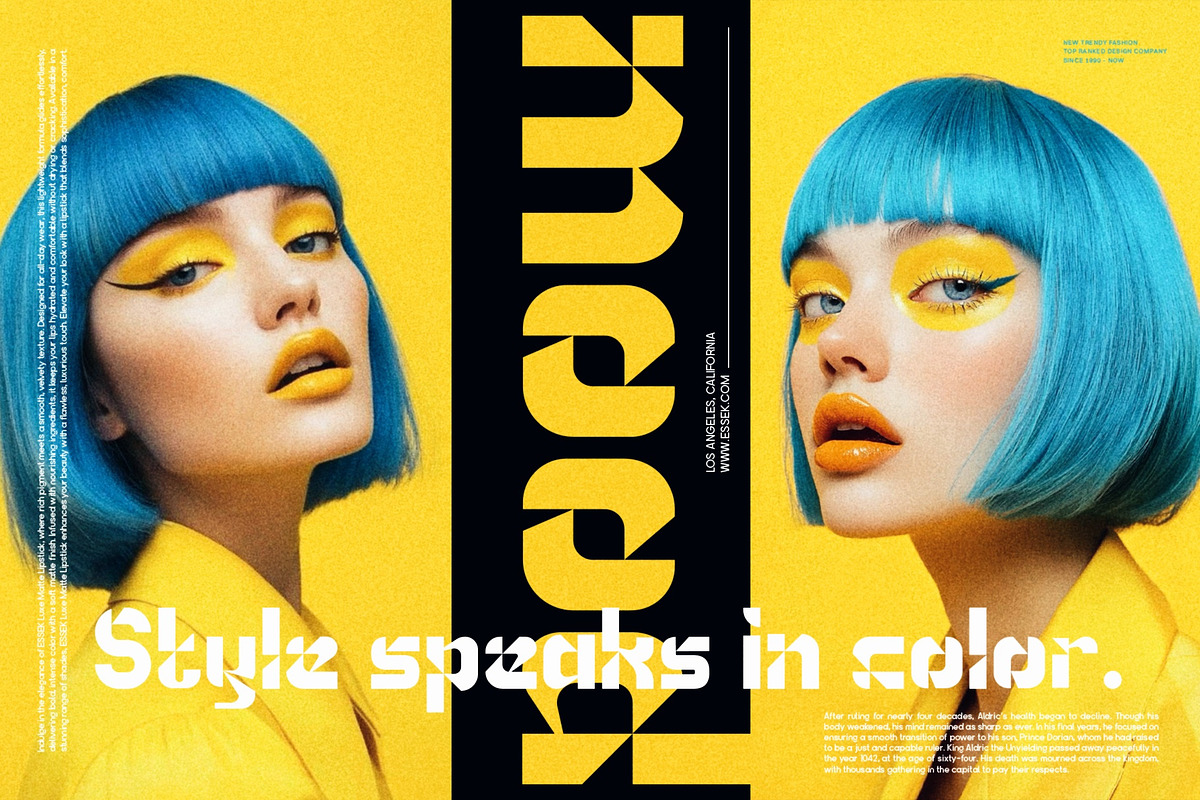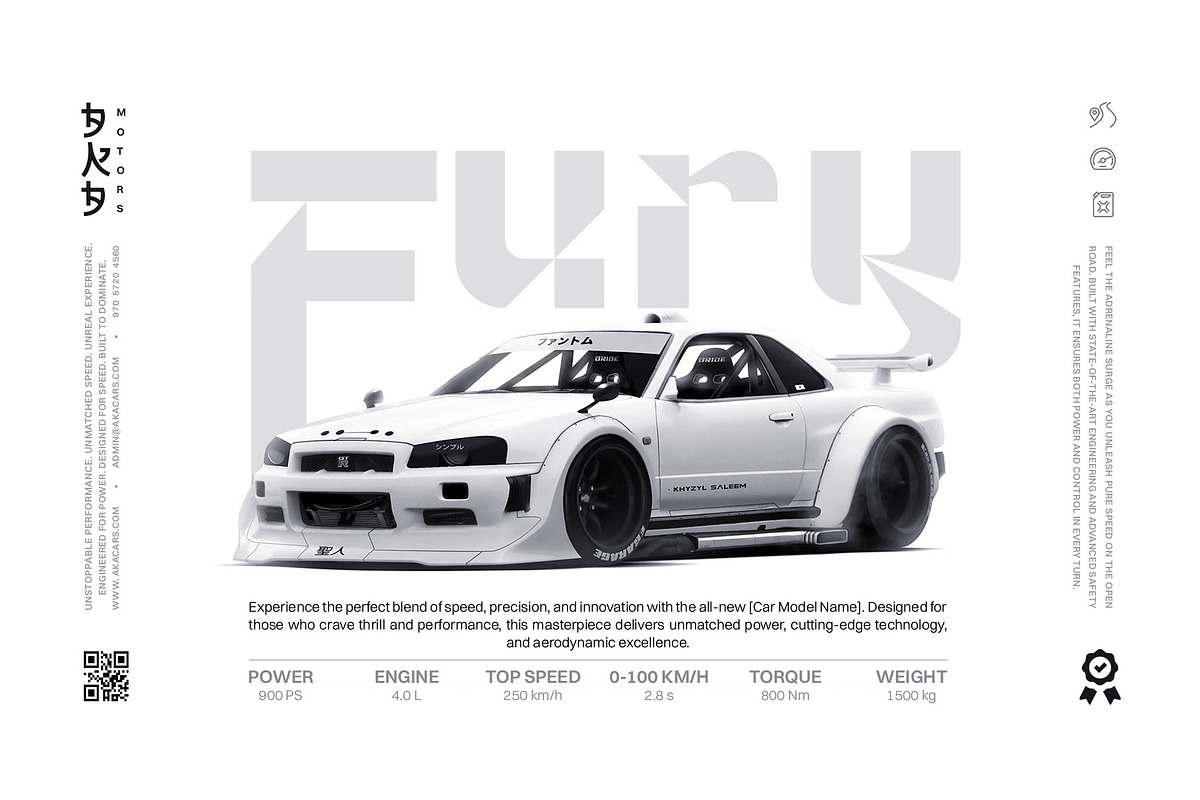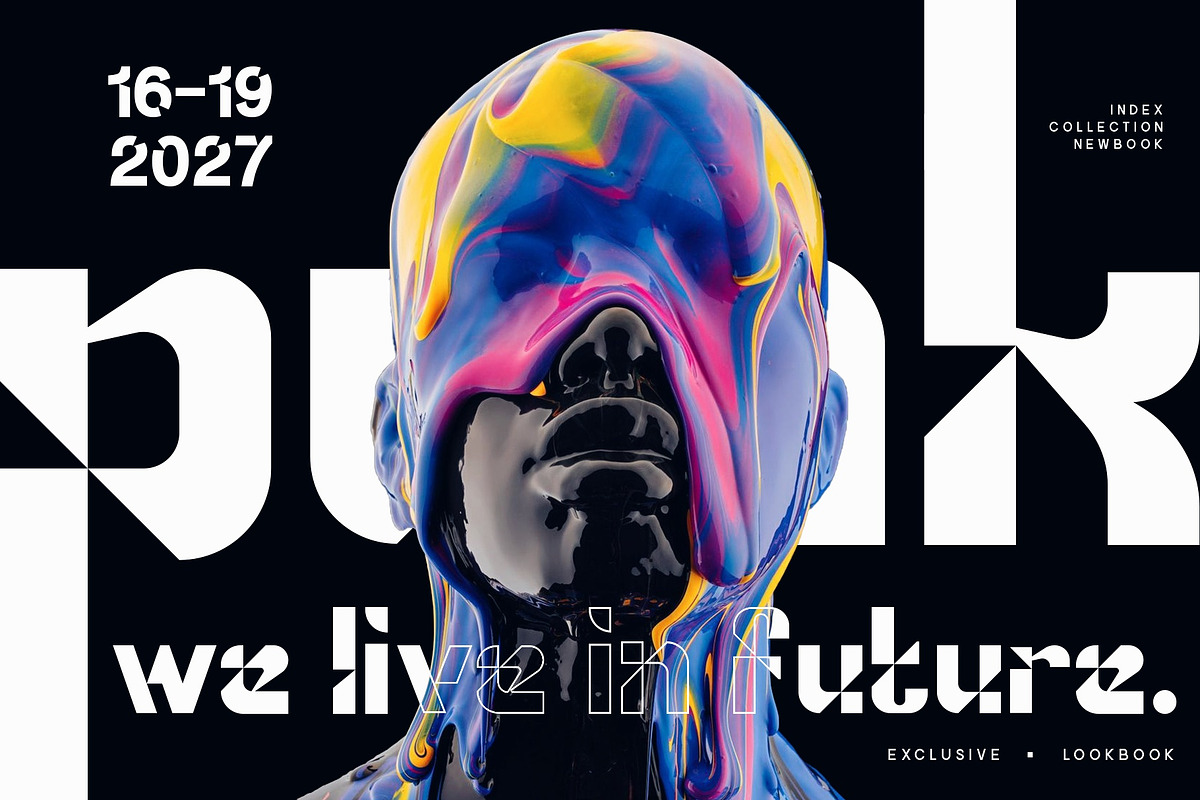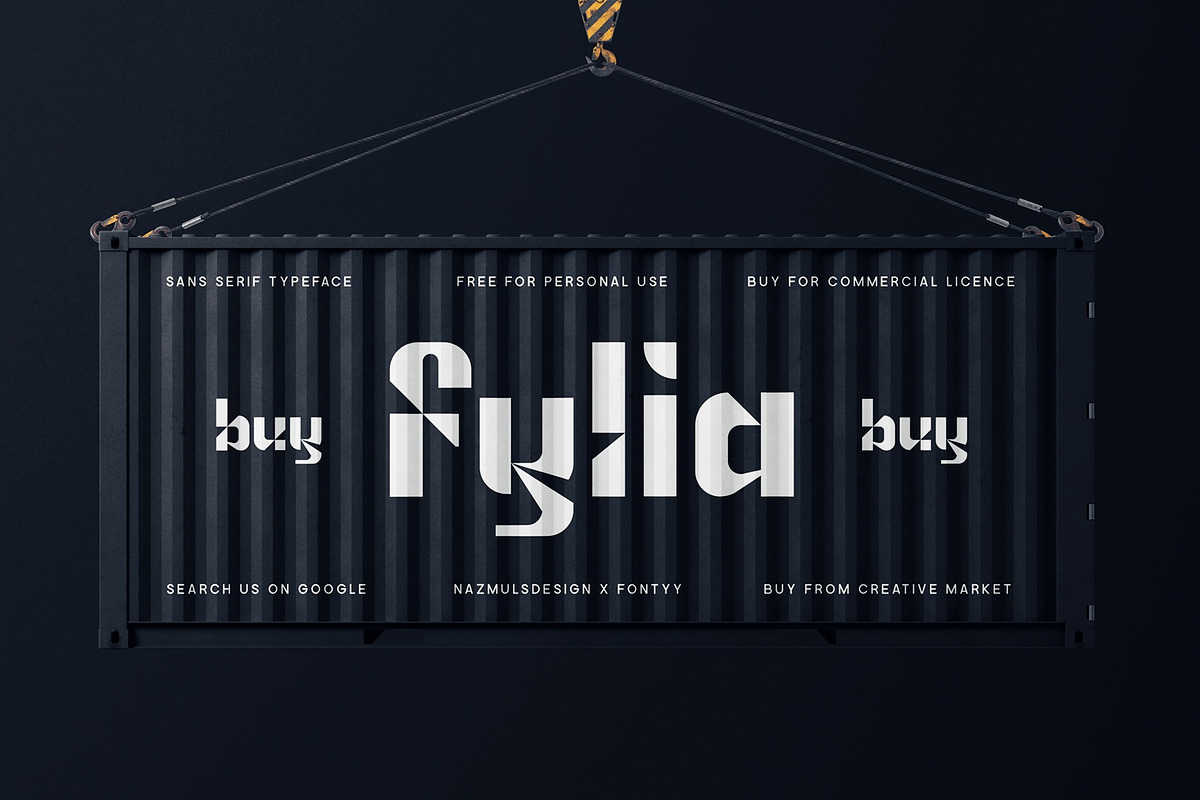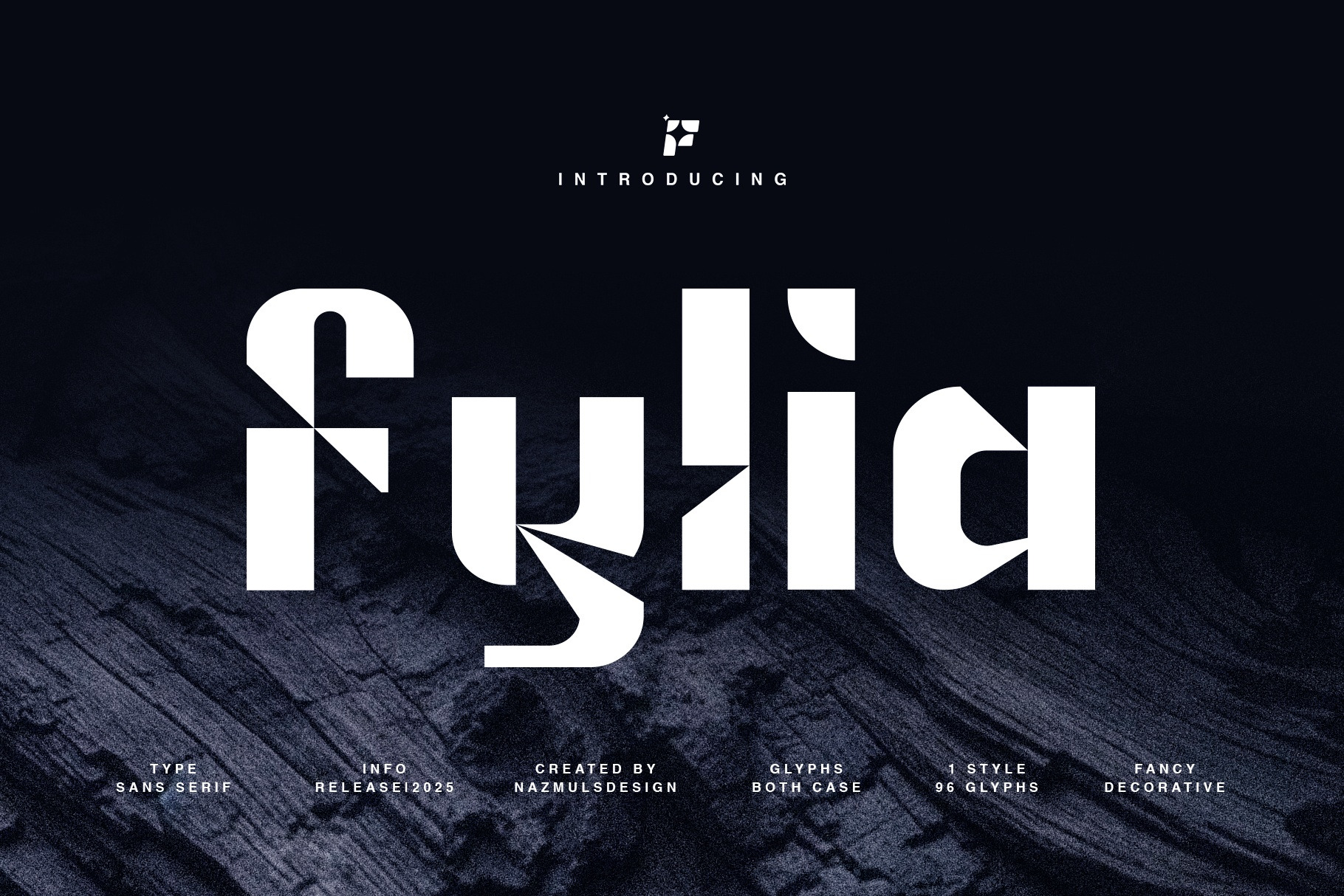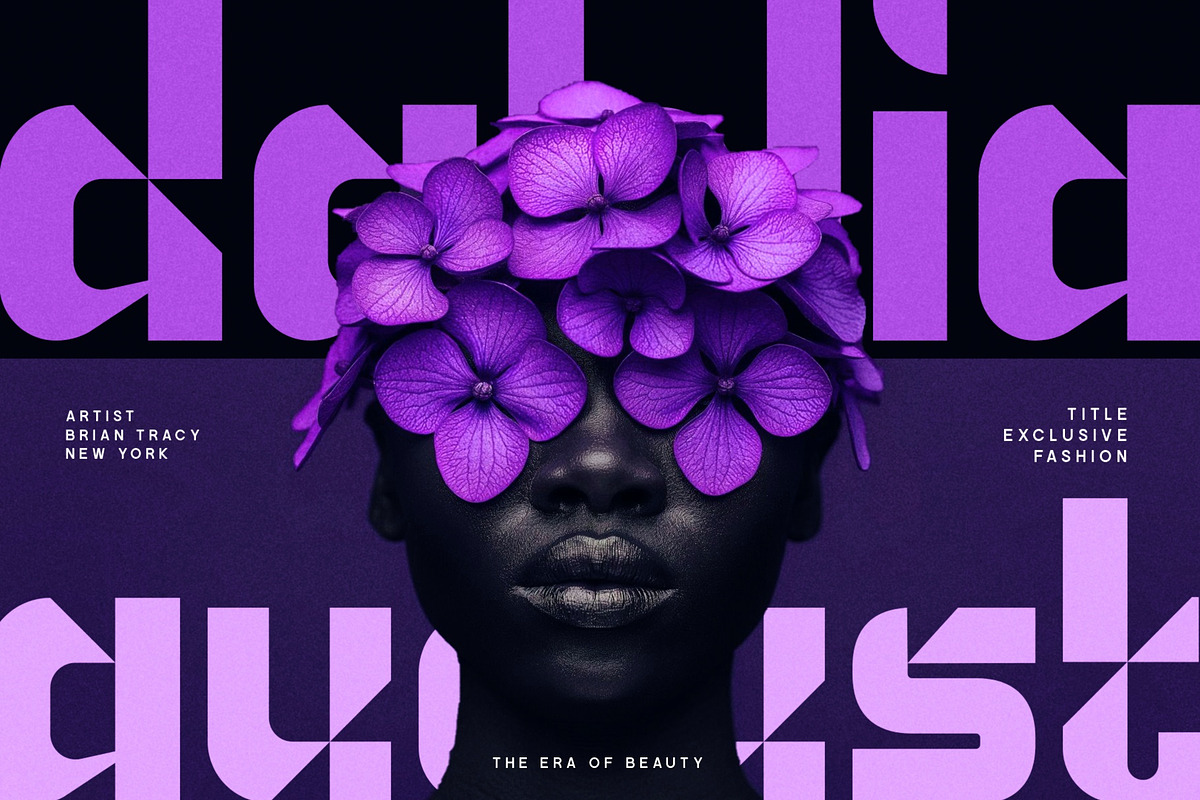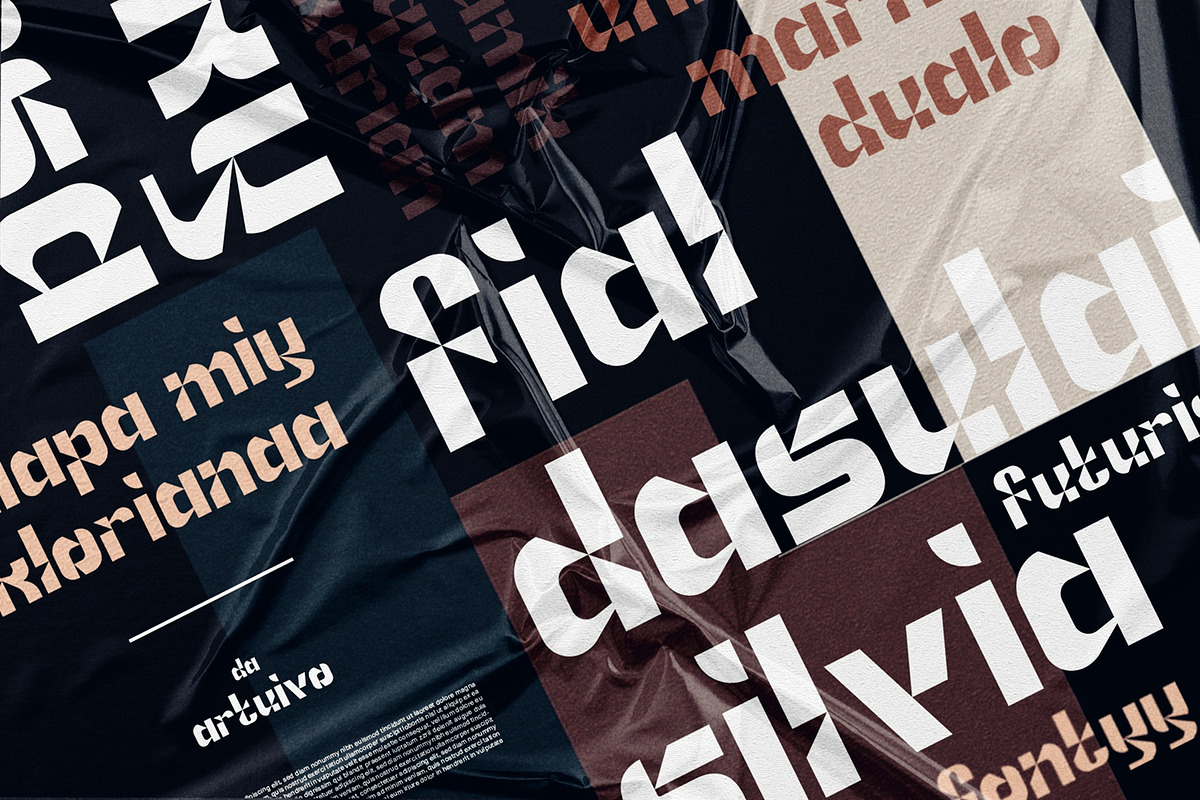
Fylia | Sans Serif Typeface
Fylia is a bold decorative sans-serif font built entirely from clean, geometric shapes. With a futuristic and modern aesthetic, Fylia is crafted for creatives who want to make a strong visual statement. Its sharp lines, symmetrical curves, and balanced letterforms make it a perfect fit for high-impact design projects.
Whether you're working on gaming titles, tech-focused branding, display posters, or stylish logos, Fylia delivers a sense of innovation and edge. The font carries a digital-era attitude, making it ideal for sci-fi themes, virtual interfaces, and contemporary visual storytelling.